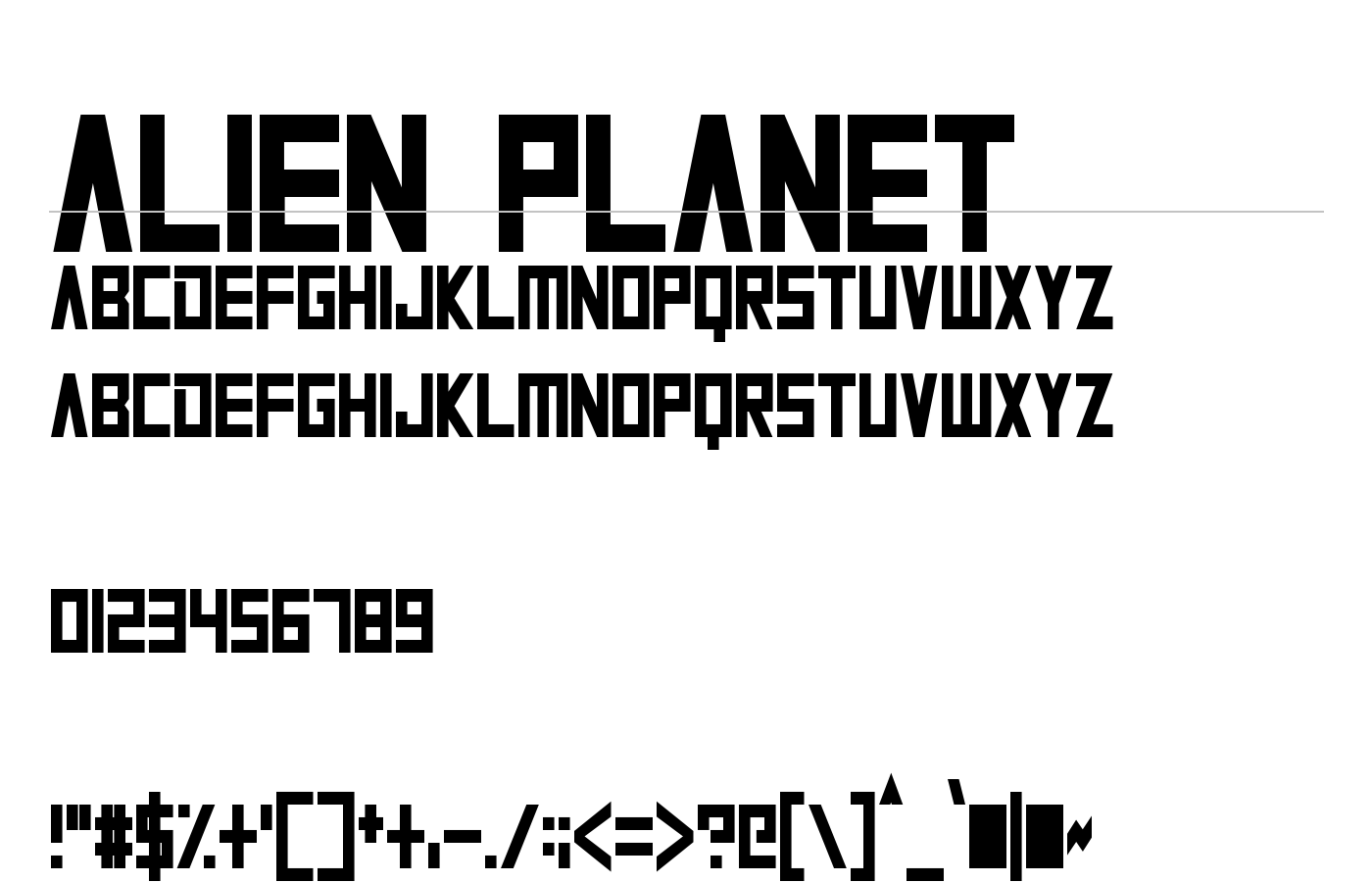
Alien Planet is a bold, condensed sans serif font with a futuristic and geometric style that evokes a sci-fi or tech-inspired vibe. Its clean, sharp edges and angular letterforms make it perfect for headlines, logos, and branding in industries like gaming, technology, and entertainment, where a modern, otherworldly look is desired. This font stands out with its distinctive shapes and strong presence, ideal for making a striking visual impact.
Alien Planet Font
About Alien Planet Font
| Font family | Alien Planet Font |
| Designer | Darrell Flood |